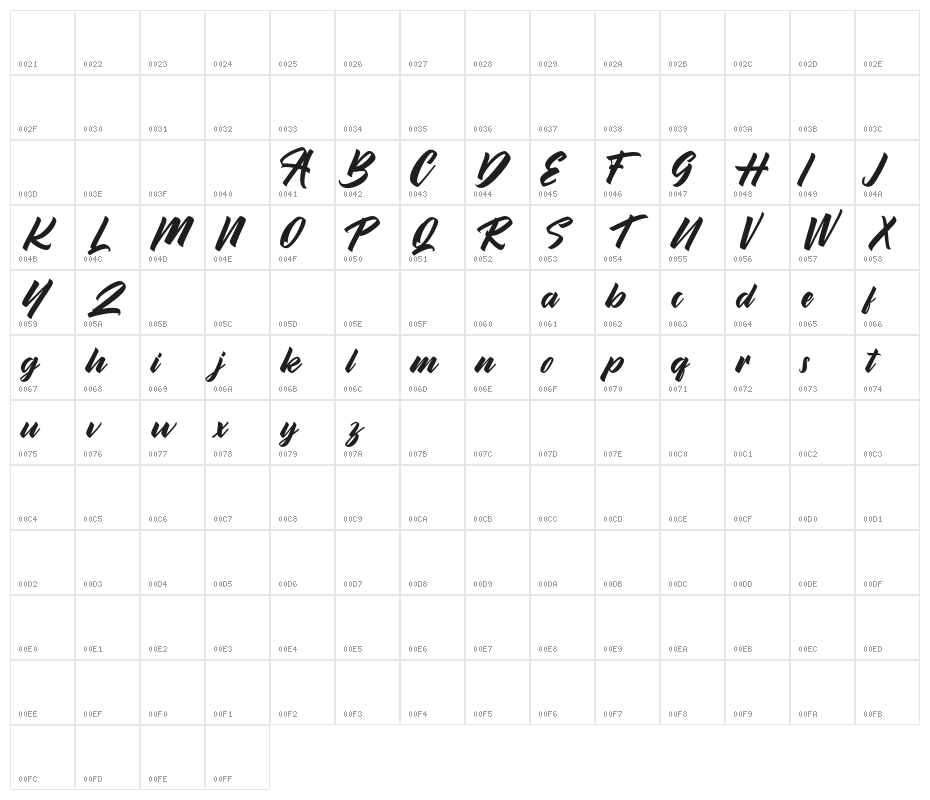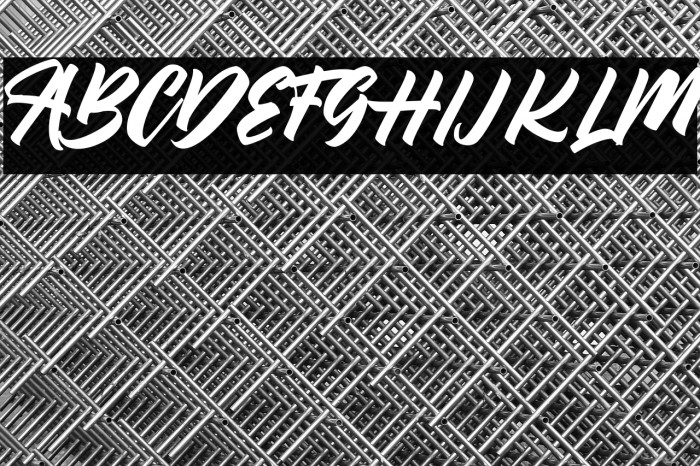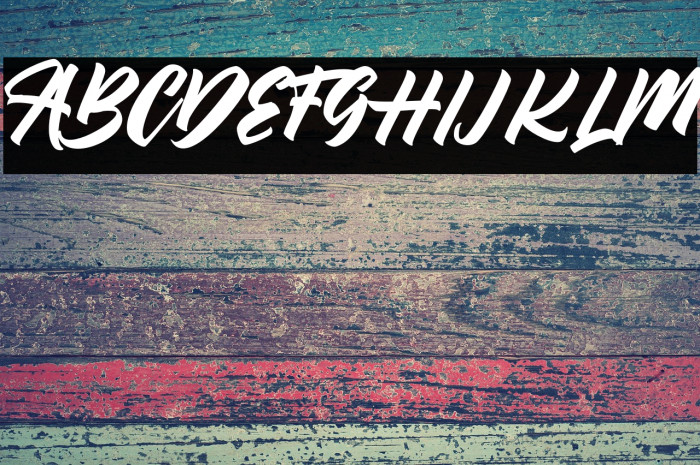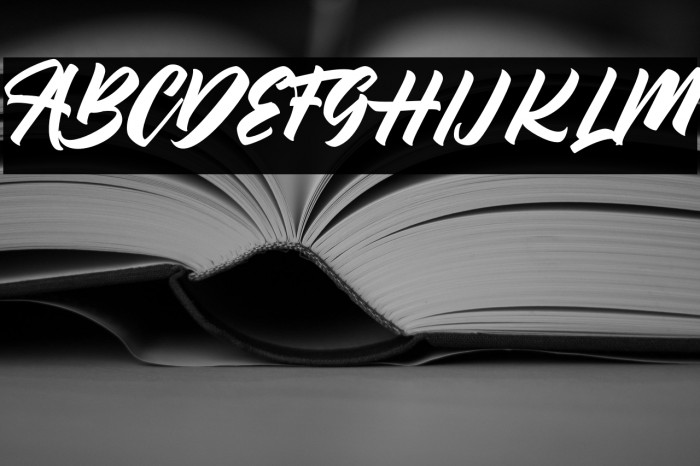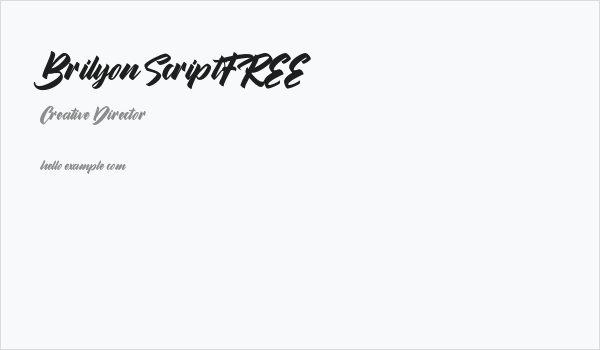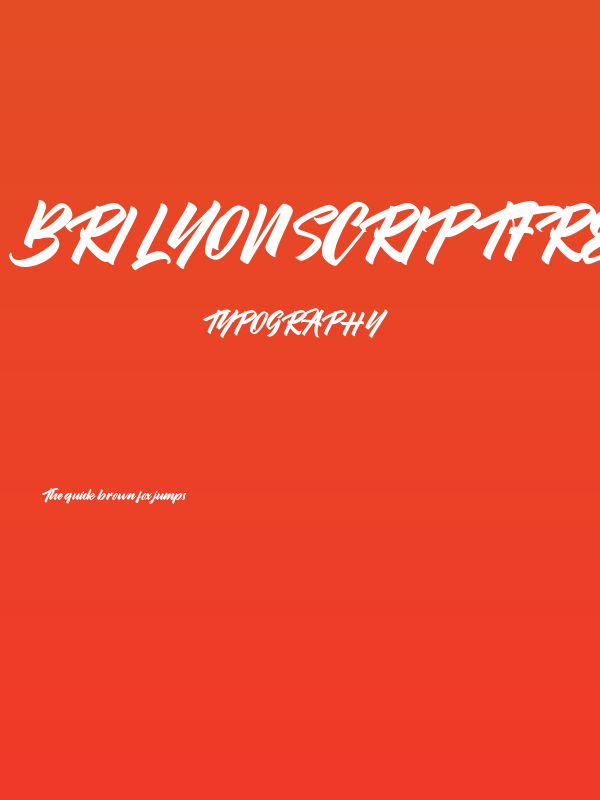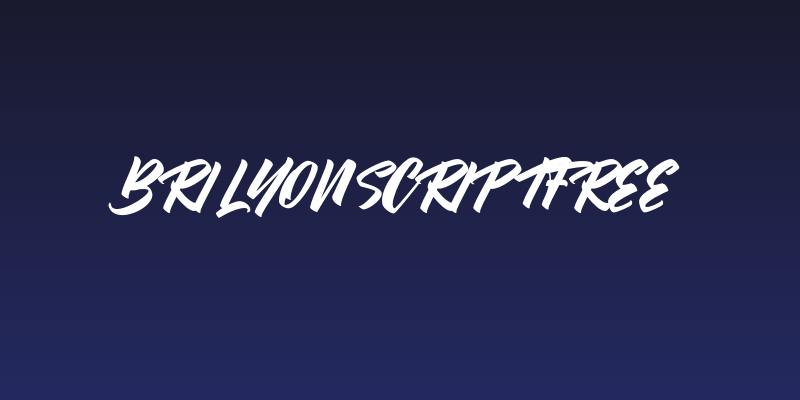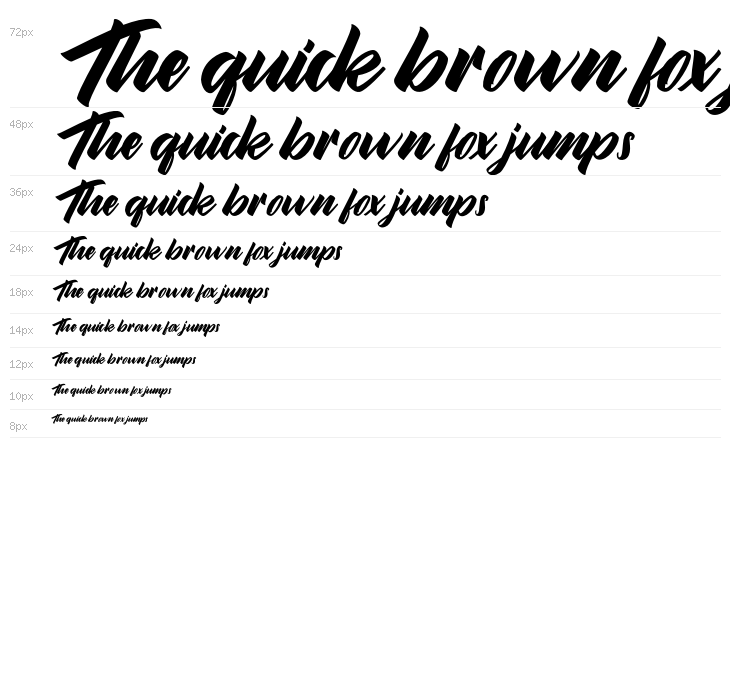
BrilyonScriptFREE Font
BrilyonScriptFREE Description
This font features a bold and dynamic script style, characterized by its fluid and connected letterforms. The strokes are thick and expressive, creating a sense of movement and energy. The uppercase letters are particularly striking, with a strong presence and a slightly slanted orientation that enhances the cursive nature of the font. The lowercase letters maintain a consistent flow, complementing the uppercase with their rounded and smooth curves. The overall appearance is both elegant and modern, making it suitable for a variety of creative applications.
| Overall Style | Modern, Elegant |
| Proposed Projects | Ideal for branding, logos, invitations, and creative design projects that require a touch of elegance and modernity. |